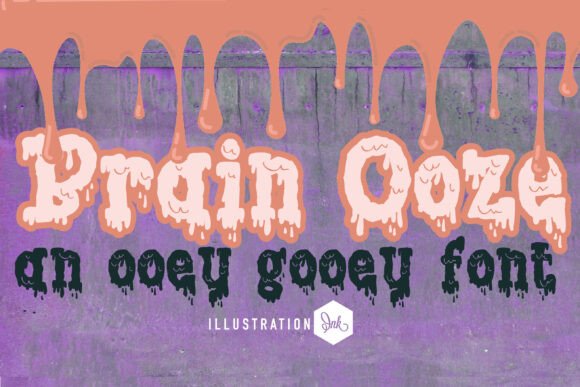
Brain Ooze Font: The Ultimate Guide to this Drippy, Oozing Font
The Brain Ooze Font is a unique and eye-catching typeface that has been gaining popularity among designers and artists. This hand-crafted font features drippy, oozing brains and gooey serifs, making it perfect for creative projects that require a touch of edginess. In this article, we’ll dive into the world of Brain Ooze Font and explore its features, uses, and benefits.
What is a Hand-Crafted Font?
A hand-crafted font is a typeface that is designed to look like it was written by hand. It is often used for invitations, greeting cards, and other items where a personal touch is desired. Handwritten fonts can be either formal or informal, and they can be used for a variety of purposes. They are often used in design projects where a unique and creative look is desired.
Features of Brain Ooze Font
The Brain Ooze Font is a one-of-a-kind typeface that features drippy, oozing brains and gooey serifs. Its unique design makes it perfect for creative projects that require a touch of edginess. Here are some of its key features:
- Hand-crafted design: The Brain Ooze Font is designed to look like it was written by hand, giving it a personal and unique touch.
- Drippy, oozing brains: The font features drippy, oozing brains that add a touch of edginess to any design project.
- Gooey serifs: The font’s serifs are designed to look like they’re oozing, adding to the overall creepy and cool effect.
- Versatile: The Brain Ooze Font can be used for a variety of purposes, from invitations and greeting cards to posters and social media graphics.
Uses of Brain Ooze Font
The Brain Ooze Font is a versatile typeface that can be used for a variety of purposes. Here are some ideas for using this font:
- Invitations: The Brain Ooze Font is perfect for invitations to parties, events, and other gatherings.
- Greeting cards: The font can be used to create unique and personalized greeting cards for special occasions.
- Posters: The Brain Ooze Font can be used to create eye-catching posters for movies, concerts, and other events.
- Social media graphics: The font can be used to create social media graphics that stand out from the crowd.
Benefits of Using Brain Ooze Font
The Brain Ooze Font offers a number of benefits for designers and artists. Here are some of the advantages of using this font:
- Unique look: The Brain Ooze Font has a unique and eye-catching design that sets it apart from other typefaces.
- Versatility: The font can be used for a variety of purposes, from invitations and greeting cards to posters and social media graphics.
- Creativity: The Brain Ooze Font inspires creativity and can be used to create unique and innovative design projects.
The Brain Ooze Font is a unique and eye-catching typeface that is perfect for creative projects that require a touch of edginess. Its hand-crafted design, drippy, oozing brains, and gooey serifs make it a standout among other fonts. With its versatility, creativity, and ease of use, the Brain Ooze Font is a great addition to any designer’s font library.